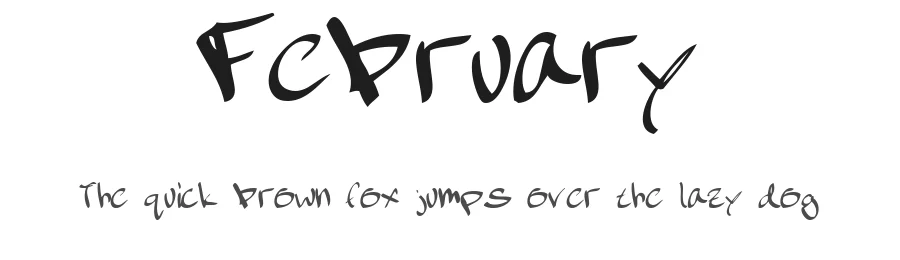
About Hinterwelt Font
Hinterwelt is a script & handwritten font designed by Lukas Schiltknecht. It includes 206 glyphs, a regular weight, OTF (CFF) format, and 212 languages. Hinterwelt is free to download; check the license details on this page before commercial use. Script & handwritten fonts like Hinterwelt work best for wedding invitations, greeting cards, signatures, and elegant branding.
Hinterwelt Font is a script font that shines as a display or heading face. Pair it with a clean sans-serif or serif font for body text β the contrast creates a clear hierarchy while the two styles stay balanced and easy to read.